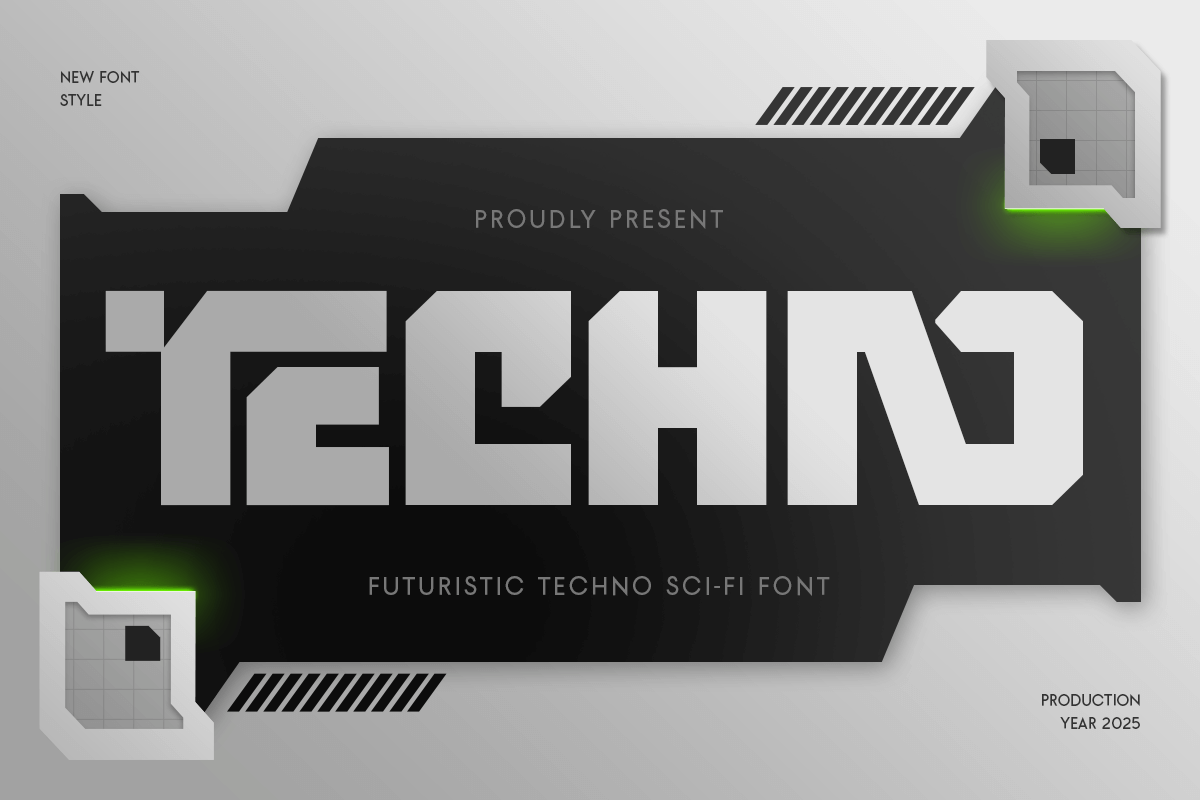
Techno
-Futuristic Techno Sci-Fi Font
Techno - Futuristic Techno Sci-Fi Font
TECHNO is a futuristic techno sci-fi font designed for modern digital branding and cutting-edge visual projects. Its bold geometric shapes and clean, angular structure create a high-tech aesthetic perfect for gaming, innovation, software, and technology-driven designs.
Inspired by cyber interfaces and modern digital systems, TECHNO combines precision and creativity to deliver a sleek, forward-thinking look. Whether used for logos, posters, movie titles, or UI elements, this font captures the essence of speed, power, and innovation.
Ideal for startups, gaming brands, and tech companies, TECHNO brings a futuristic edge that enhances readability while maintaining visual impact. Use it to build an identity that feels dynamic, advanced, and unmistakably modern.
TECHNO – Futuristic Techno Sci-Fi Font Features
• Bold and futuristic design for digital and tech branding
• Perfect for gaming, software, interfaces, and sci-fi visuals
• Clean geometric construction with sharp edges and balance
• Great for posters, titles, and digital environments
• OpenType features for advanced typographic flexibility